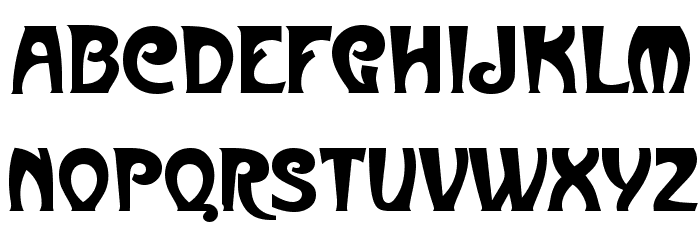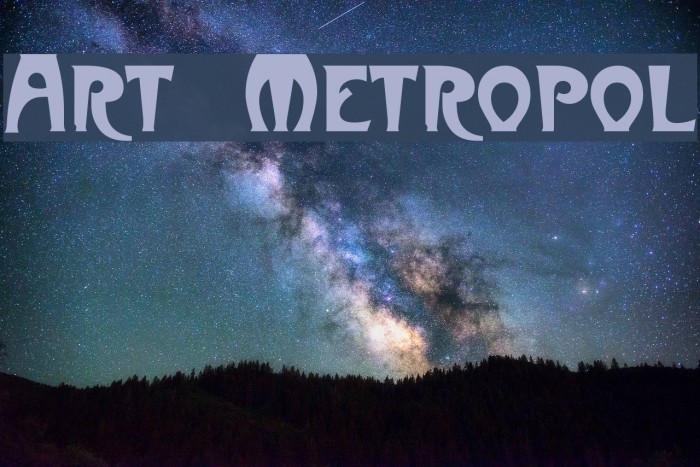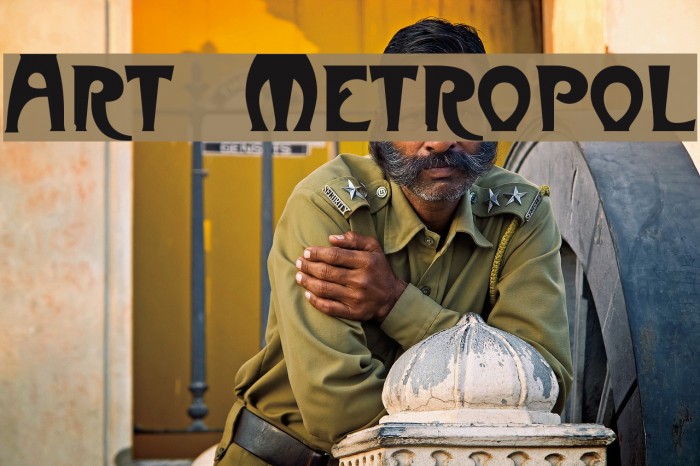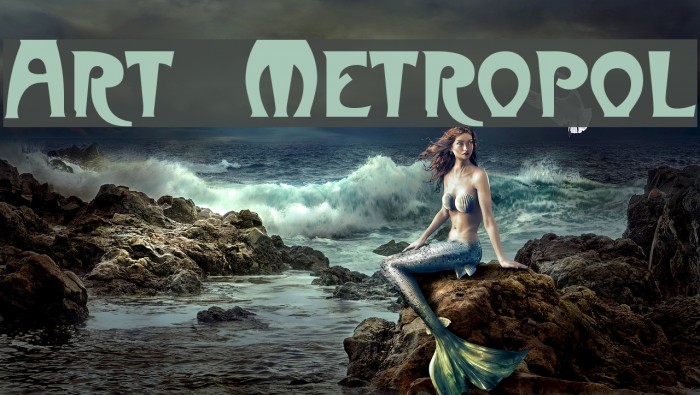
Art-Metropol Font
This font features a bold and dynamic style with a distinctively playful and artistic flair. The characters are designed with a unique curvature and angularity that give them a lively and energetic appearance. The uppercase letters have a strong presence, while the lowercase letters maintain a consistent style that complements the overall design. Numbers and special characters are crafted to match the boldness and creativity of the alphabet, making this font suitable for eye-catching designs. The font's thick strokes and high contrast make it stand out, while the slightly condensed width adds to its compact and impactful look.
A bold, artistic font with high contrast and playful curves.
- Proposed Projects: Ideal for posters, logos, branding, and any project requiring a bold, artistic touch.